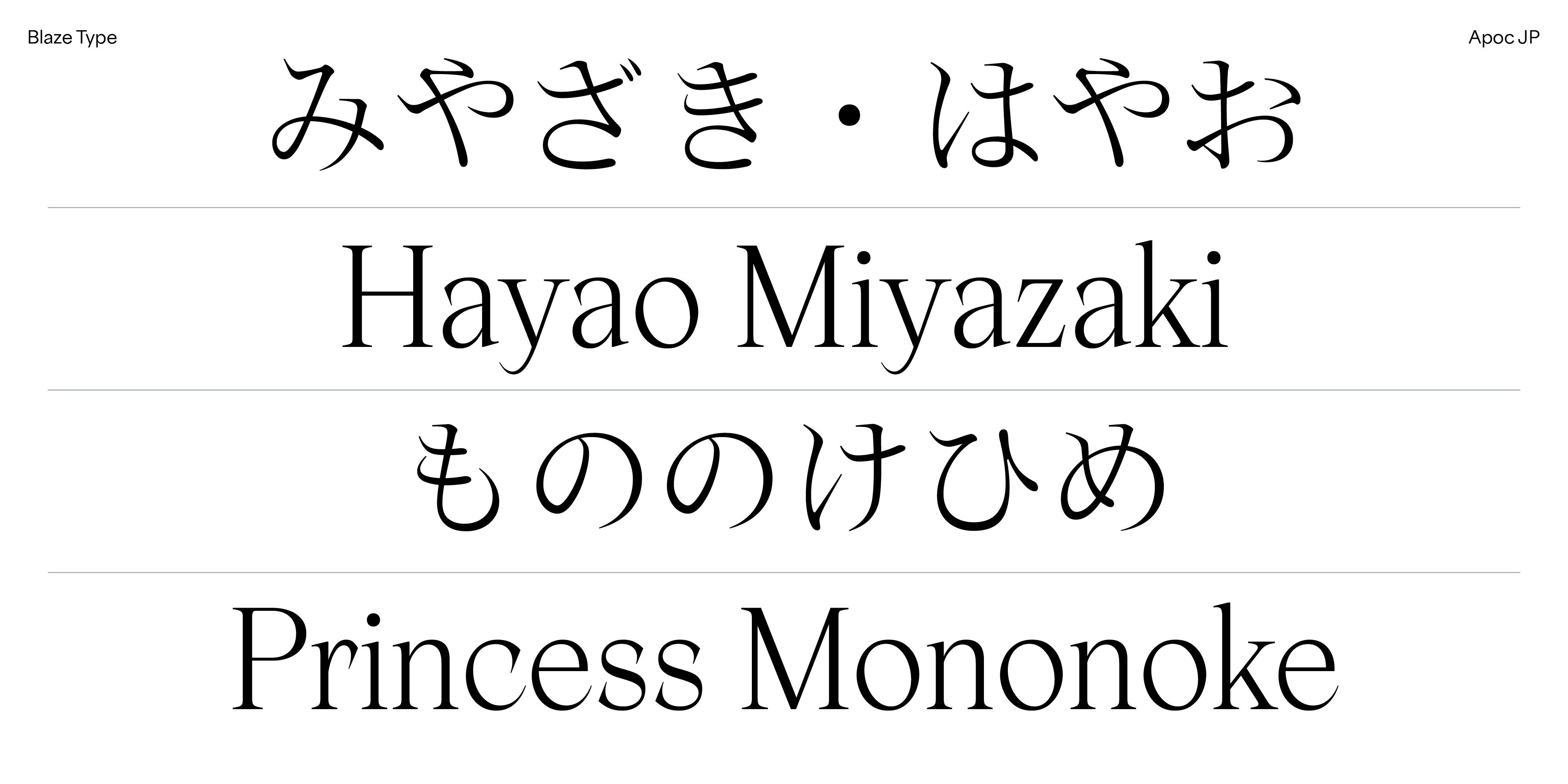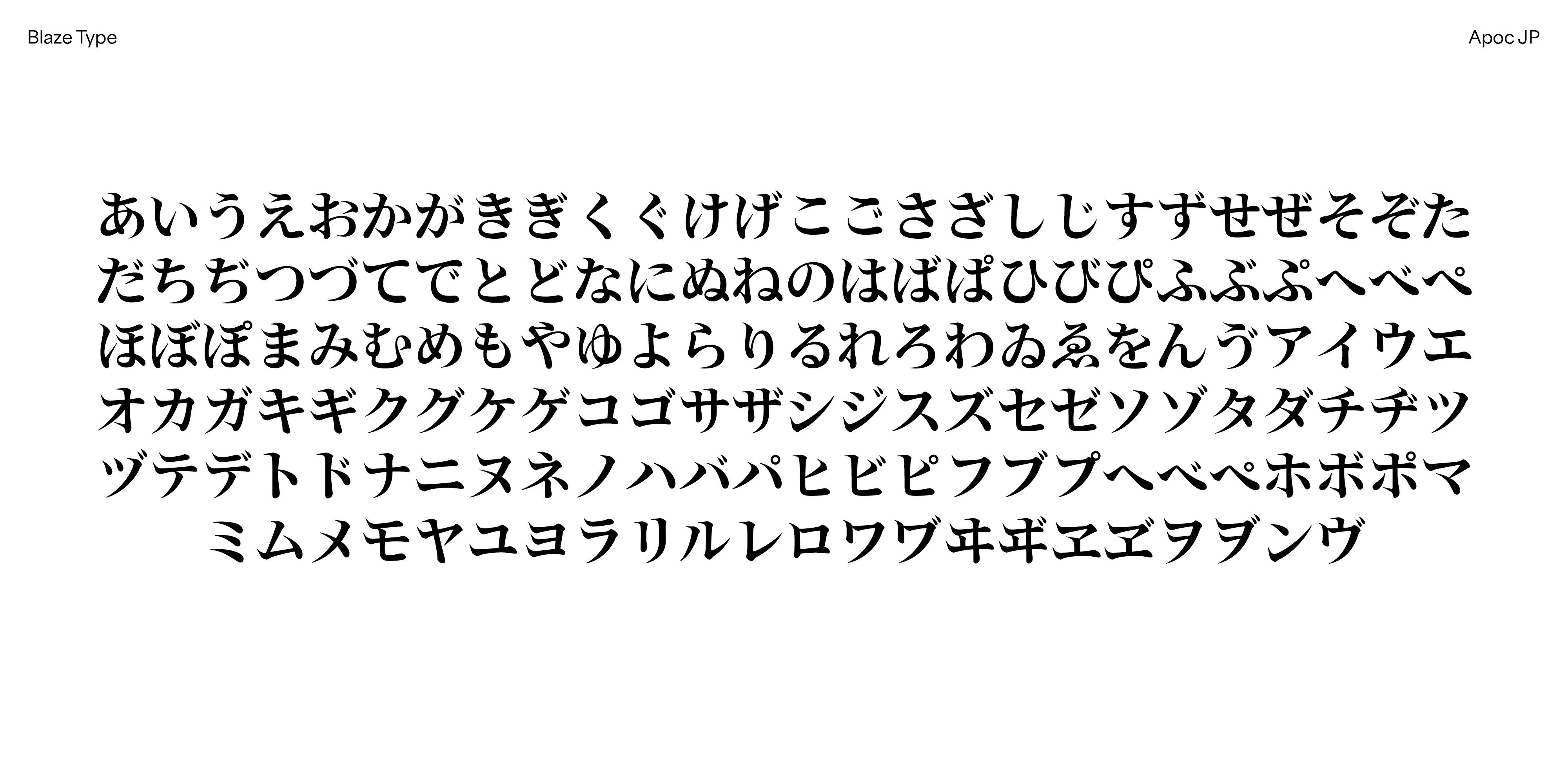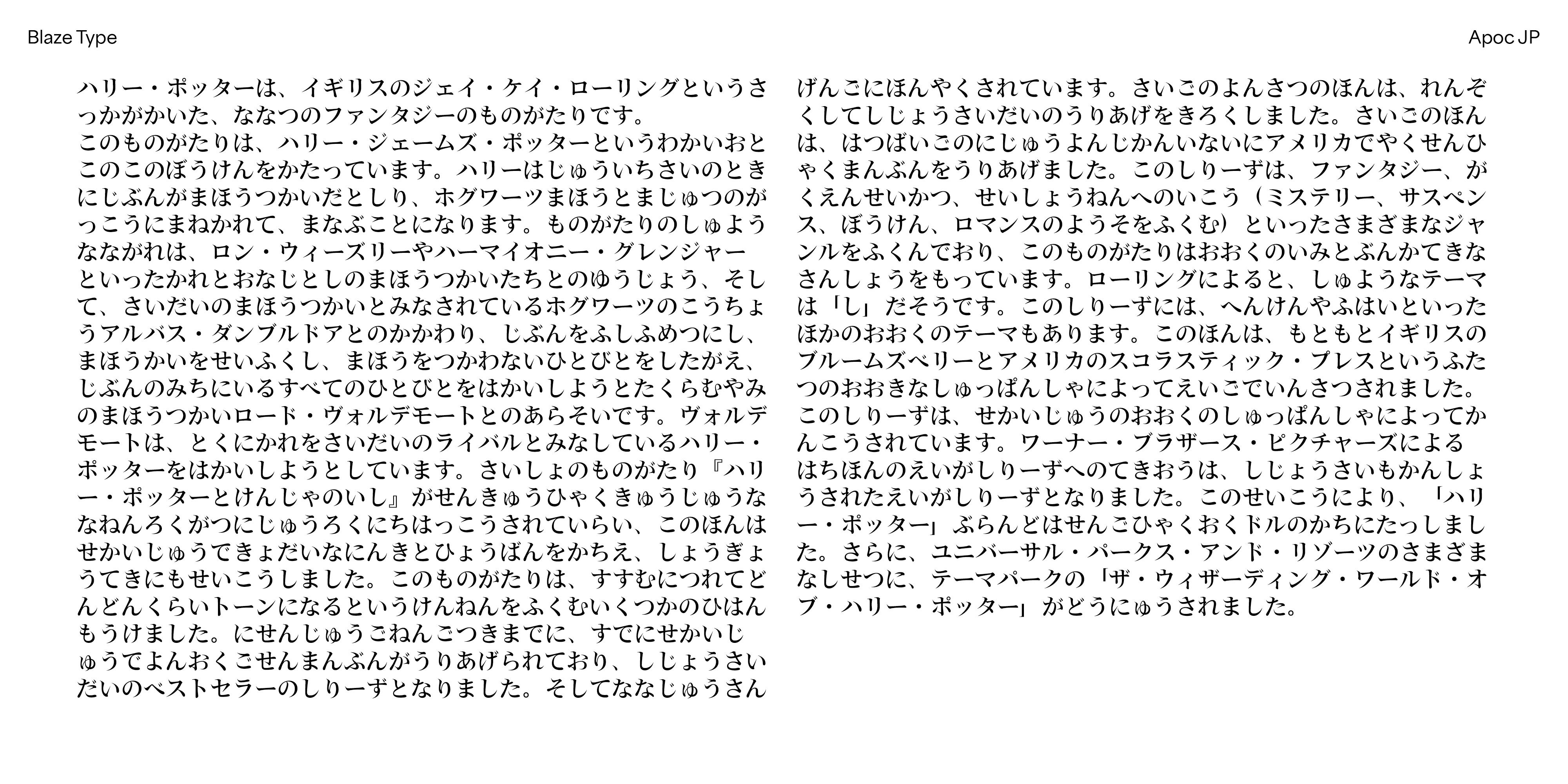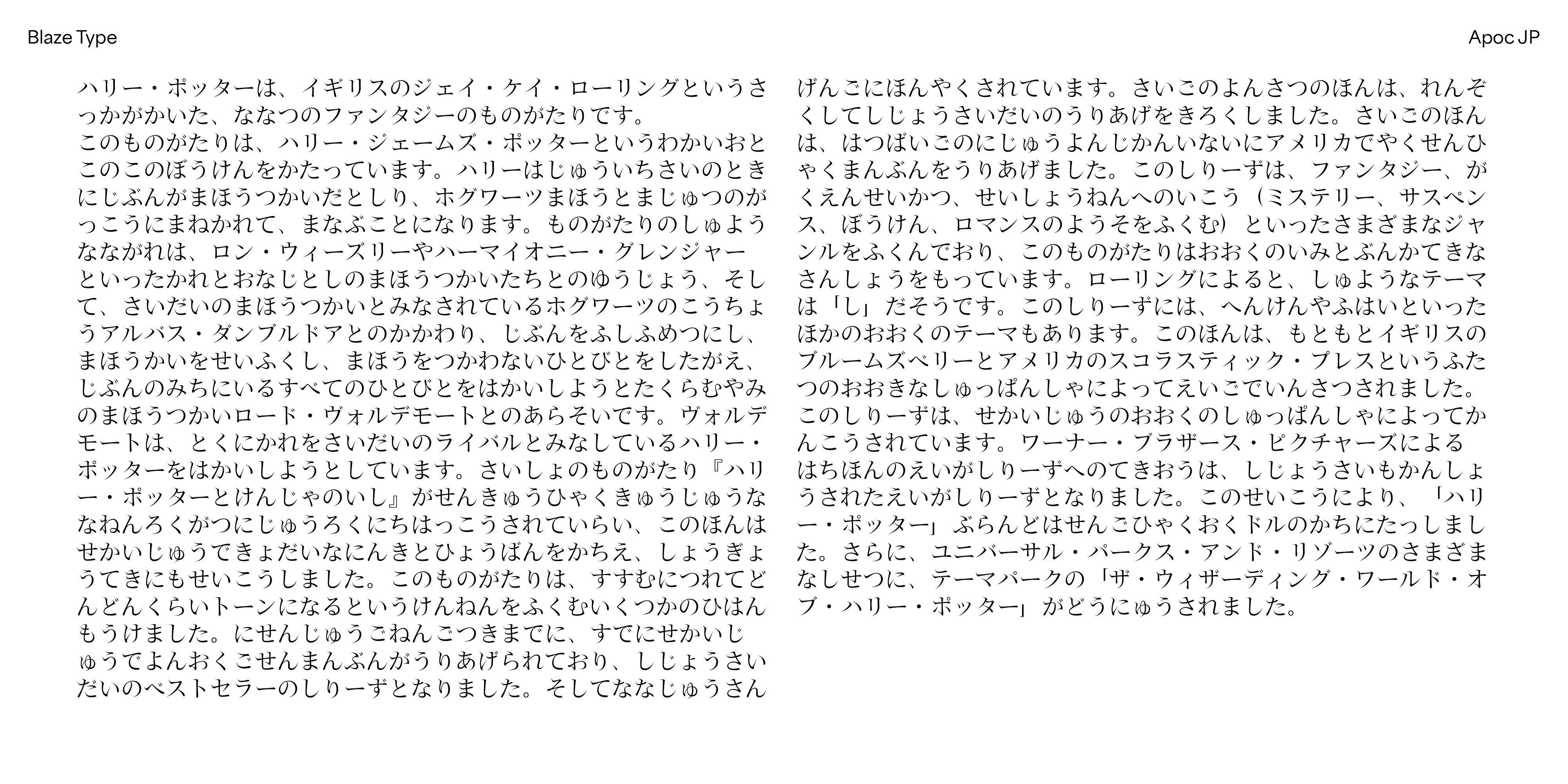
Apoc JP にほん
Area JP Expanding the Rhythm, Blending Kana & Latin.
Apoc JP is the Latin+Japanese (Kana) support of Apoc Font Family. Supporting both Horizontal and Vertical writing system. Apoc embodies the battle between Light and Dark. Apoc(alypse)'s sharp character set & alternates were released in 2018 and updated in 2020 & 2022 by Matthieu Salvaggio. Defined by designers as the most popular typeface of standout contemporary independent design, Apoc is an elegant, sharp, expressive font family, perfect for bold standout displays focusing on heavy font uses. This font is perfectly suited to sharpen your website headlines, art exhibition's posters or even your album covers.
Apoc JP は、Apoc フォントファミリーにラテン文字+日本語(かな)を対応させたバージョンです。横組み・縦組みの両方の書字体系をサポートしています。
Apoc は「光と闇の戦い」を体現する書体です。Apoc(Apocalypse)の鋭利な文字セットとオルタネートは 2018 年にリリースされ、その後 Matthieu Salvaggio によって 2020 年および 2022 年にアップデートされました。現代のインディペンデントデザインを象徴する、際立った存在感を持つ最も人気のあるタイプフェイスのひとつとして、デザイナーたちに評価されています。Apoc はエレガントでシャープ、表現力豊かなフォントファミリーで、太いウエイトを活かした大胆で印象的なディスプレイ用途に最適です。
ウェブサイトの見出し、アート展のポスター、アルバムカバーなどを、より鋭く際立たせるための書体として理想的です。
Matthieu Salvaggio , Caio Kondo